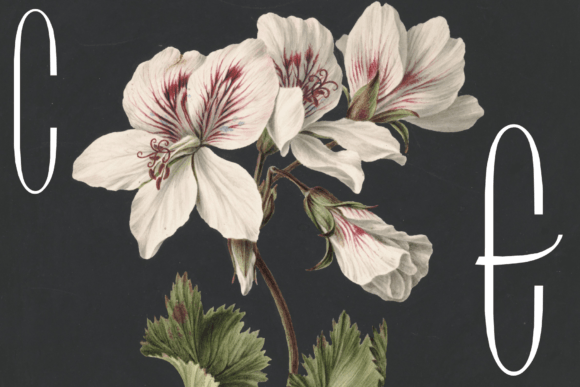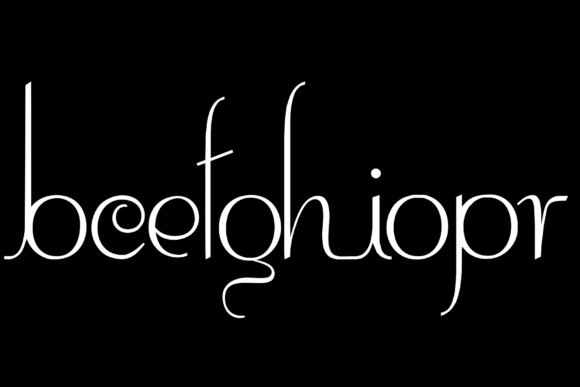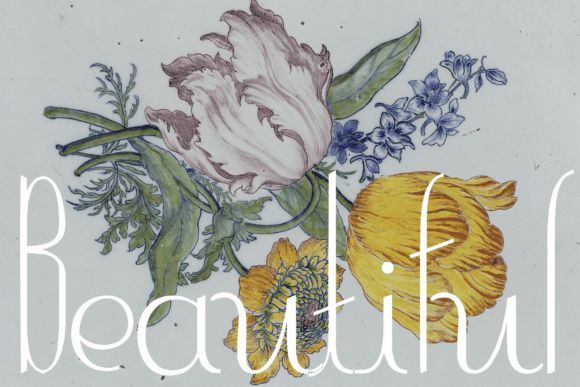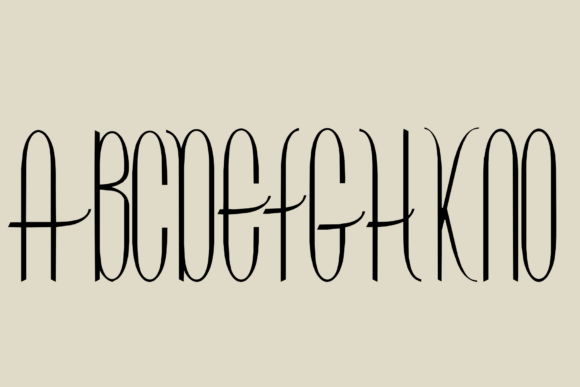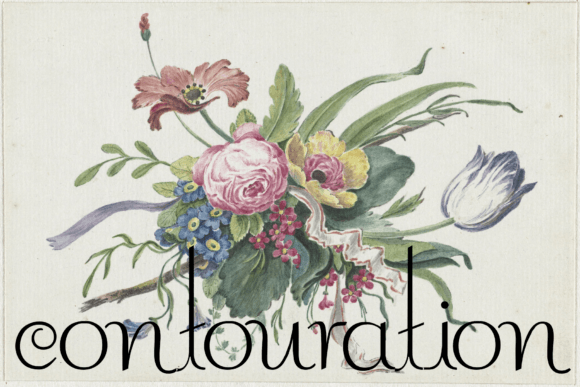
Introducing Contouration Font: The Bold and Stylish Retro Display Font
Are you looking for a font that adds a touch of vintage charm to your designs? Look no further than Contouration Font, a bold and stylish retro display font that is perfect for logos, posters, and headlines. With its unique lines and shapes, Contouration Font gives off a classic vibe that is sure to grab attention and leave a lasting impression.
What is Contouration Font?
Contouration Font is a carefully crafted font that is designed to evoke the spirit of classic design. Its bold and stylish lines are reminiscent of vintage posters and logos, making it the perfect choice for designers who want to add a touch of nostalgia to their work. The font’s unique design features make it easy to read and eye-catching, ensuring that your message gets across loud and clear.
Key Features of Contouration Font
- Bold and Stylish: Contouration Font is a bold and stylish font that is perfect for making a statement.
- Retro Vibe: The font’s design gives off a vintage vibe that is perfect for logos, posters, and headlines.
- Unique Lines and Shapes: Contouration Font features unique lines and shapes that set it apart from other fonts.
- Easy to Read: Despite its bold design, Contouration Font is easy to read and understand.
- Eye-Catching: The font’s bold and stylish design makes it perfect for grabbing attention and leaving a lasting impression.
Uses of Contouration Font
Contouration Font is a versatile font that can be used in a variety of design projects. Here are some of the most popular uses of the font:
- Logos: Contouration Font is perfect for creating bold and stylish logos that make a statement.
- Posters: The font’s vintage vibe makes it perfect for creating eye-catching posters that grab attention.
- Headlines: Contouration Font is perfect for creating bold and stylish headlines that add a touch of class to any publication.
- Signage: The font’s bold design makes it perfect for creating eye-catching signage that is easy to read from a distance.
Benefits of Using Contouration Font
There are many benefits to using Contouration Font in your design projects. Here are some of the most significant advantages:
- Adds a Touch of Vintage Charm: Contouration Font adds a touch of vintage charm to any design project, making it perfect for designers who want to create a classic look.
- Improves Readability: The font’s bold design makes it easy to read, even from a distance.
- Increases Visibility: Contouration Font is perfect for grabbing attention and increasing visibility.
- Versatile: The font can be used in a variety of design projects, from logos and posters to headlines and signage.
Tips for Using Contouration Font
Here are some tips for using Contouration Font in your design projects:
- Use it Sparingly: Contouration Font is a bold font, so it’s best to use it sparingly to avoid overwhelming the reader.
- Pair it with Other Fonts: The font pairs well with other fonts, so feel free to experiment with different combinations.
- Experiment with Colors: Contouration Font looks great in a variety of colors, so don’t be afraid to experiment and find the perfect hue for your design.
Contouration Font is a bold and stylish retro display font that is perfect for designers who want to add a touch of vintage charm to their work. With its unique lines and shapes, the font is sure to grab attention and leave a lasting impression. Whether you’re creating a logo, poster, or headline, Contouration Font is the perfect choice. So why wait? Download Contouration Font today and start creating stunning designs that are sure to impress!